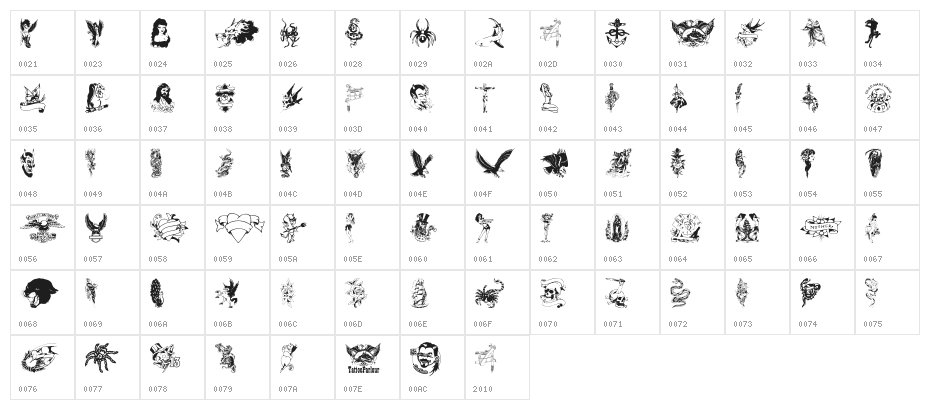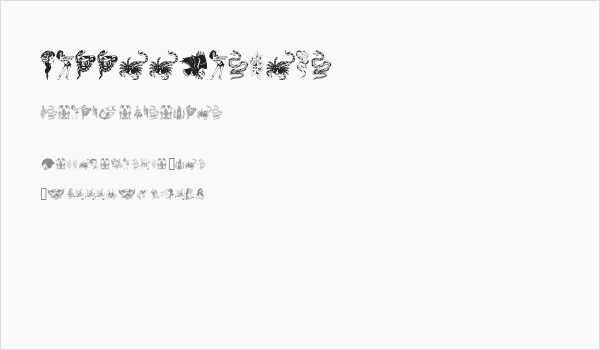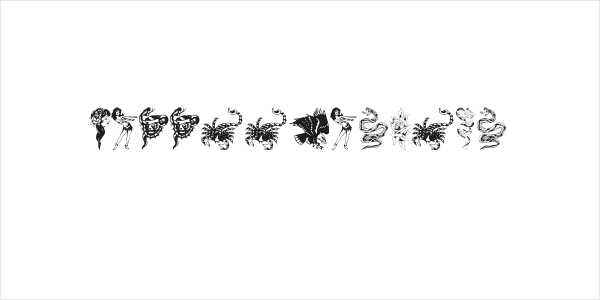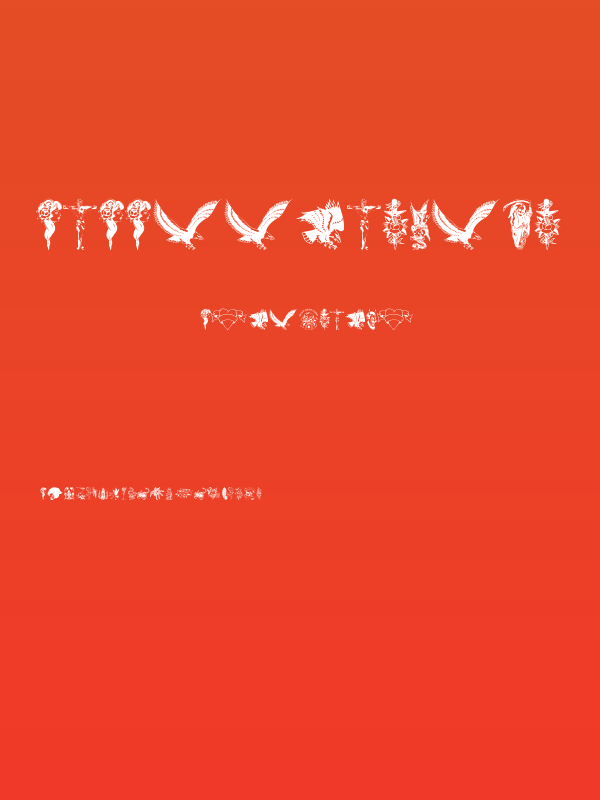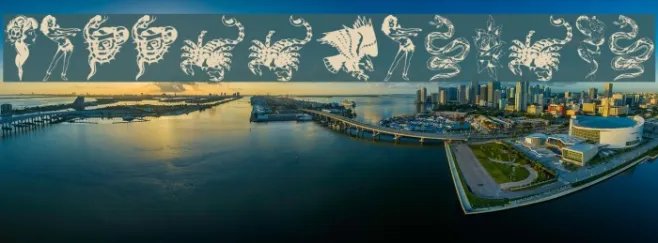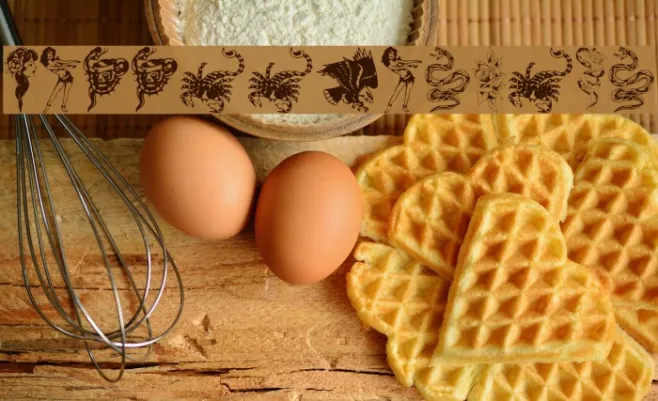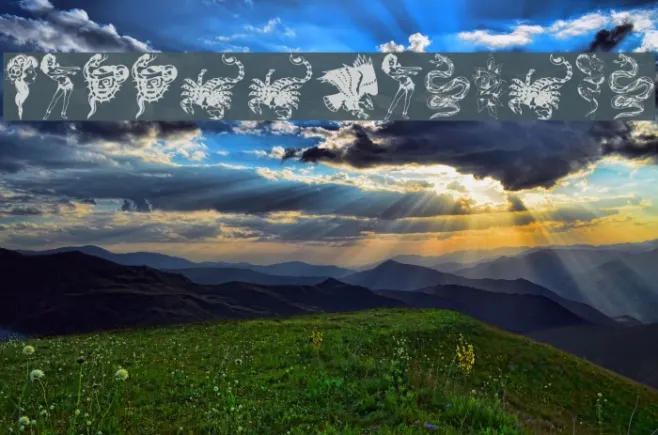
TattooParlour Font
TattooParlour Description
A decorative display font composed of classic American traditional tattoo flash art for each character, featuring bold outlines, high-contrast blackwork, and iconic motifs such as daggers, hearts, eagles, pin-up girls, and skulls. Each glyph is a unique illustration, making the set highly ornamental and visually striking.
| Overall Style | Vintage, Decorative, Tattoo-inspired |
| Use Case | Logos, Headlines, Posters, Themed Graphics |
| Proposed Projects | Tattoo shop branding, poster design, apparel graphics, event flyers, themed invitations, alternative music artwork. |